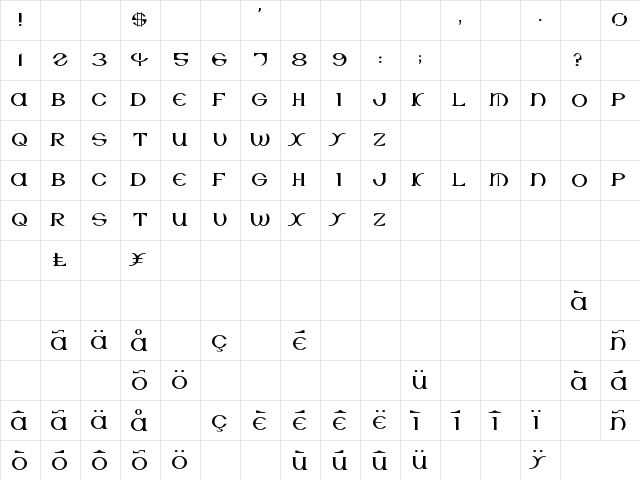
Unicercle Dubissette Regular
Design Context for Unicercle Dubissette Typeface
Unicercle Dubissette takes a measured approach to typography — its balanced proportions and neutral character make it a reliable workhorse for both digital and print work.